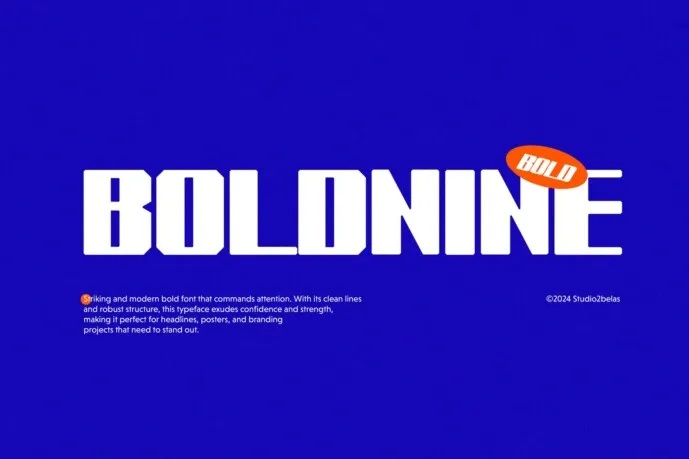
Boldnine Font
Boldnine Font a modern font packed with out-and-out power in terms of grabbing attention. This typeface is very neat and has a bold structure, therefore suitable for message headlines, publicity, and any branding that seeks to portray confidence and strength.
Boldnine Display Font